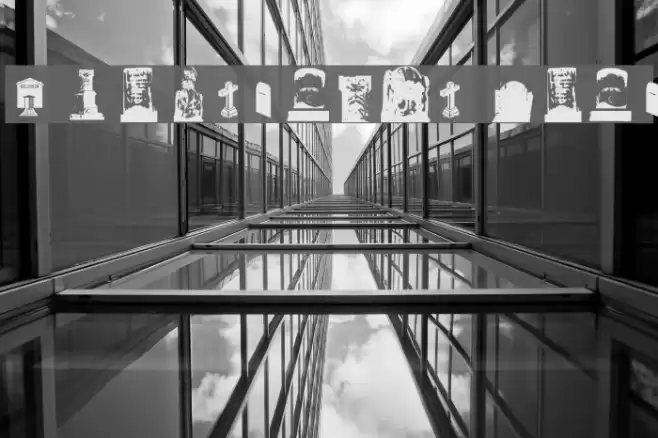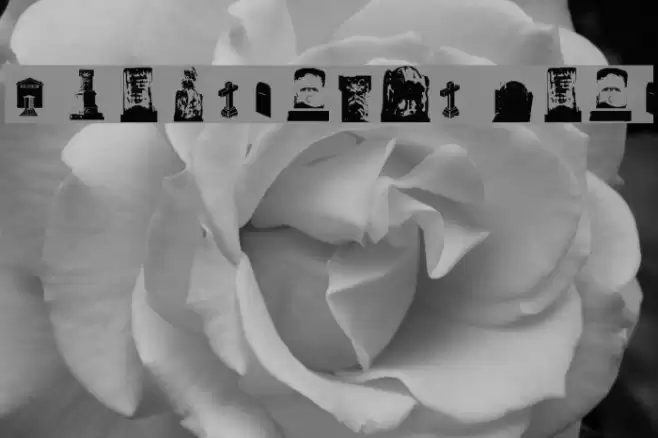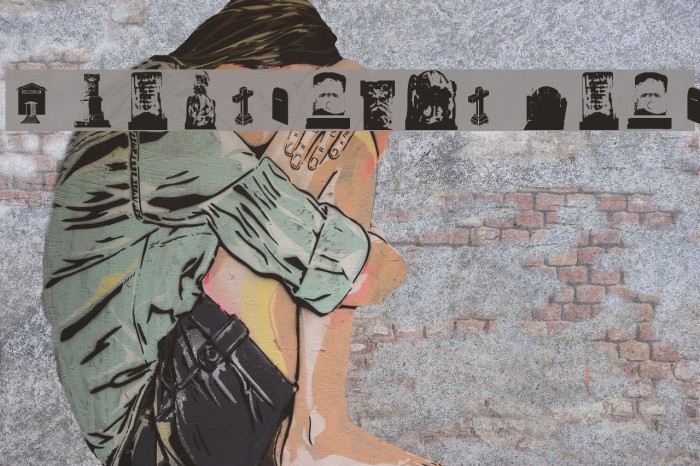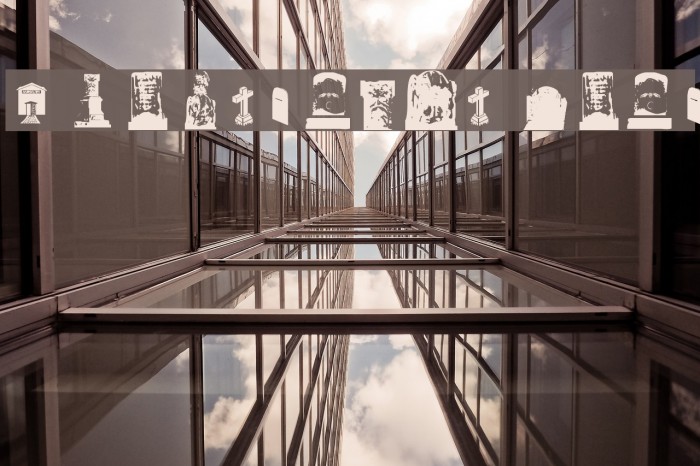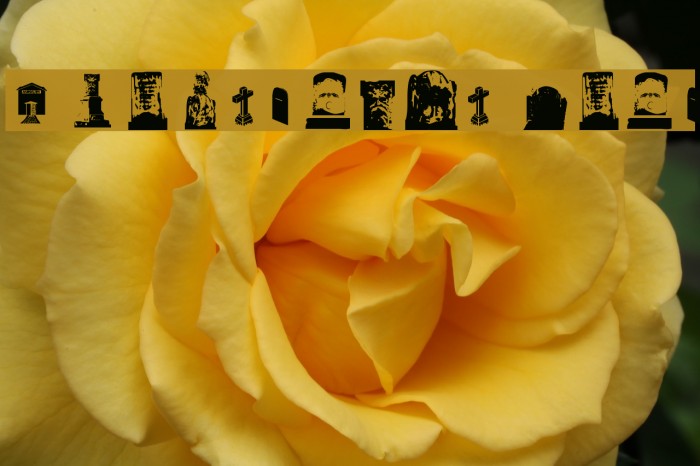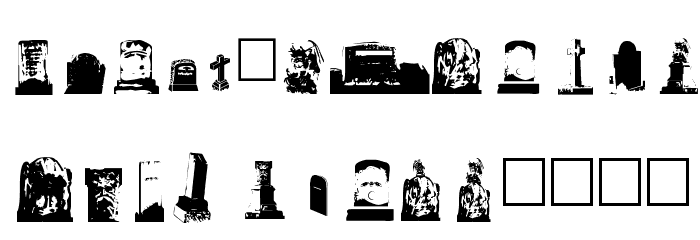
Gravestone bats Font
Gravestone bats Description
A decorative dingbat font featuring a variety of gravestone and tombstone silhouettes, including crosses, angels, and mausoleums, rendered in high-contrast black and white. Each glyph is a unique gravestone illustration, with some empty square placeholders for certain characters.
A dingbat font with gravestone and tombstone illustrations from Images & Symbols fonts.
- Proposed Projects: Halloween invitations, horror-themed posters, spooky event flyers, cemetery maps, graphic design accents.
- Overall Style: Decorative, Spooky, Thematic
- Use Case: Icons, Decorative elements, Themed graphics